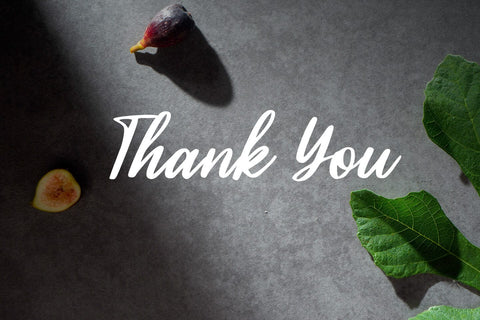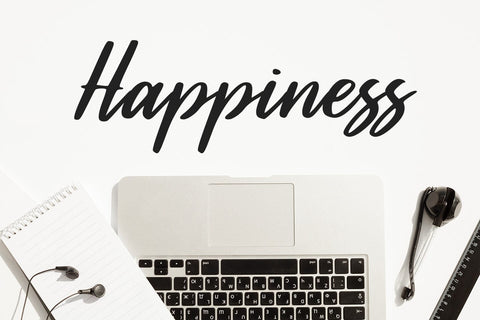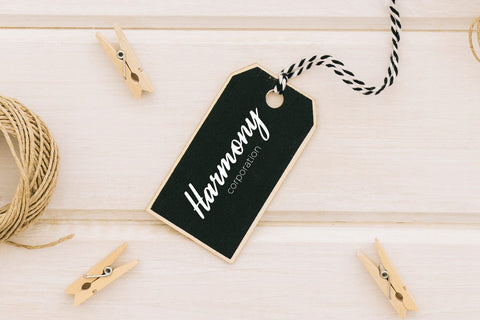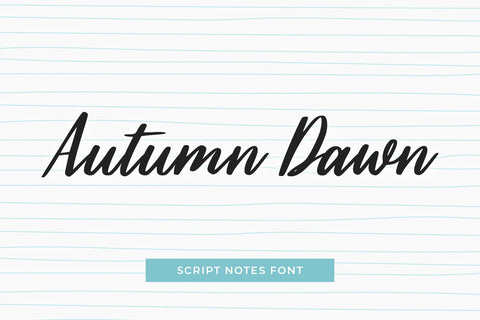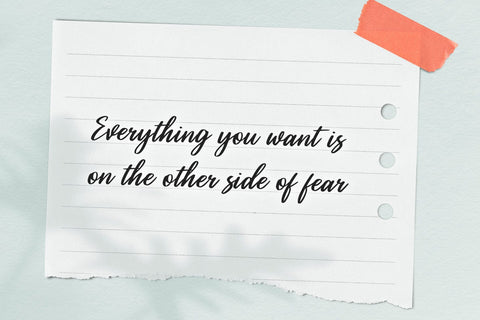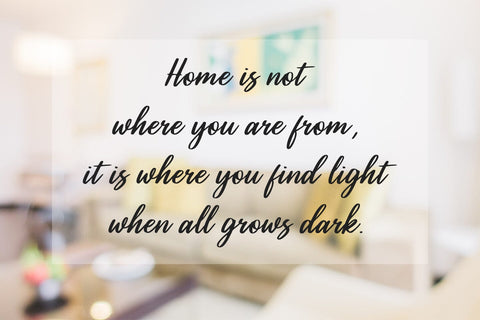
Autumn Dawn
introducing
AUTUMN DAWN
- script notes font-
AUTUMN DAWN is beautiful script font.
It is great for branding, quotes, logos, t-shirt designs, tote bag designs, cards, banners, social media, and more.